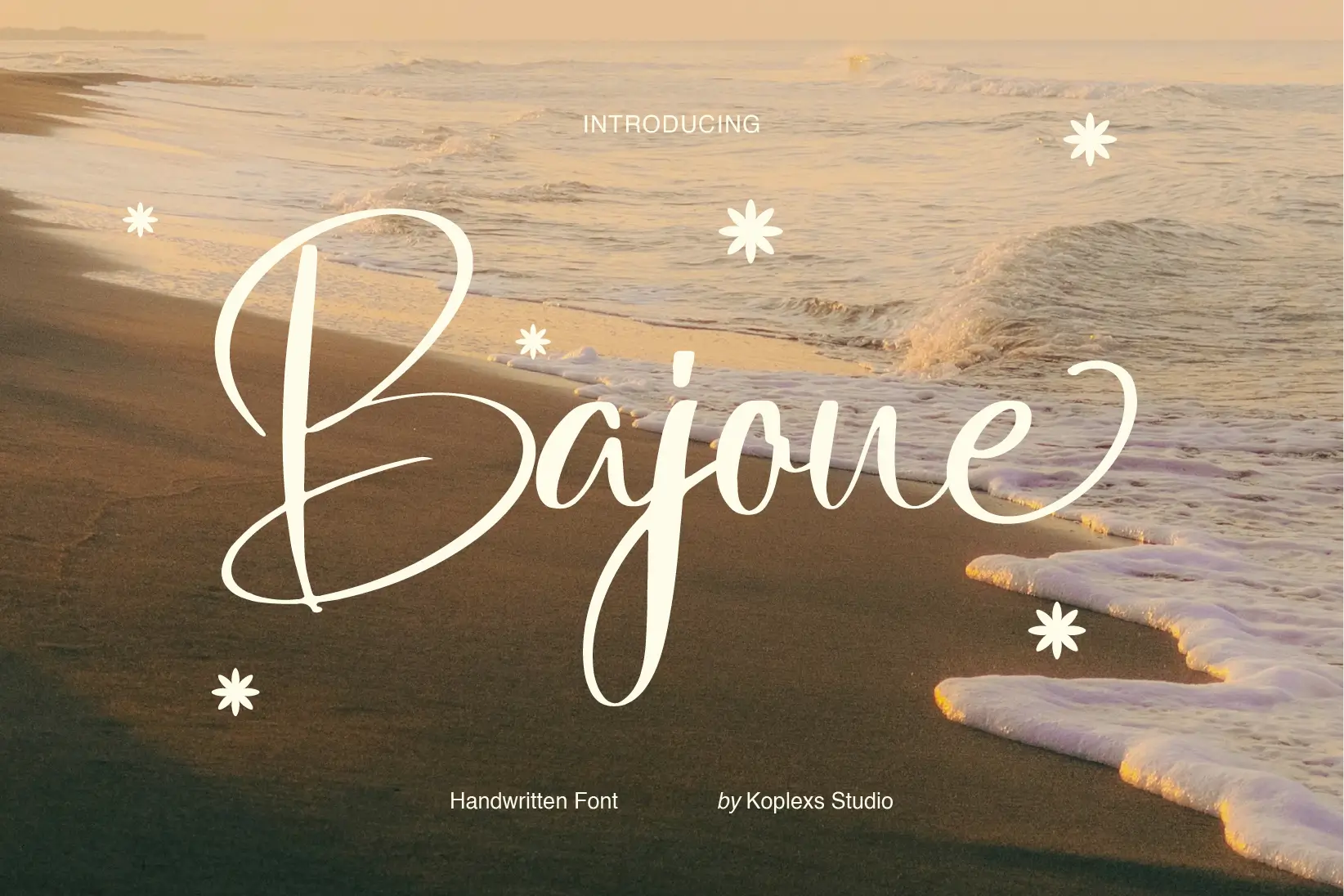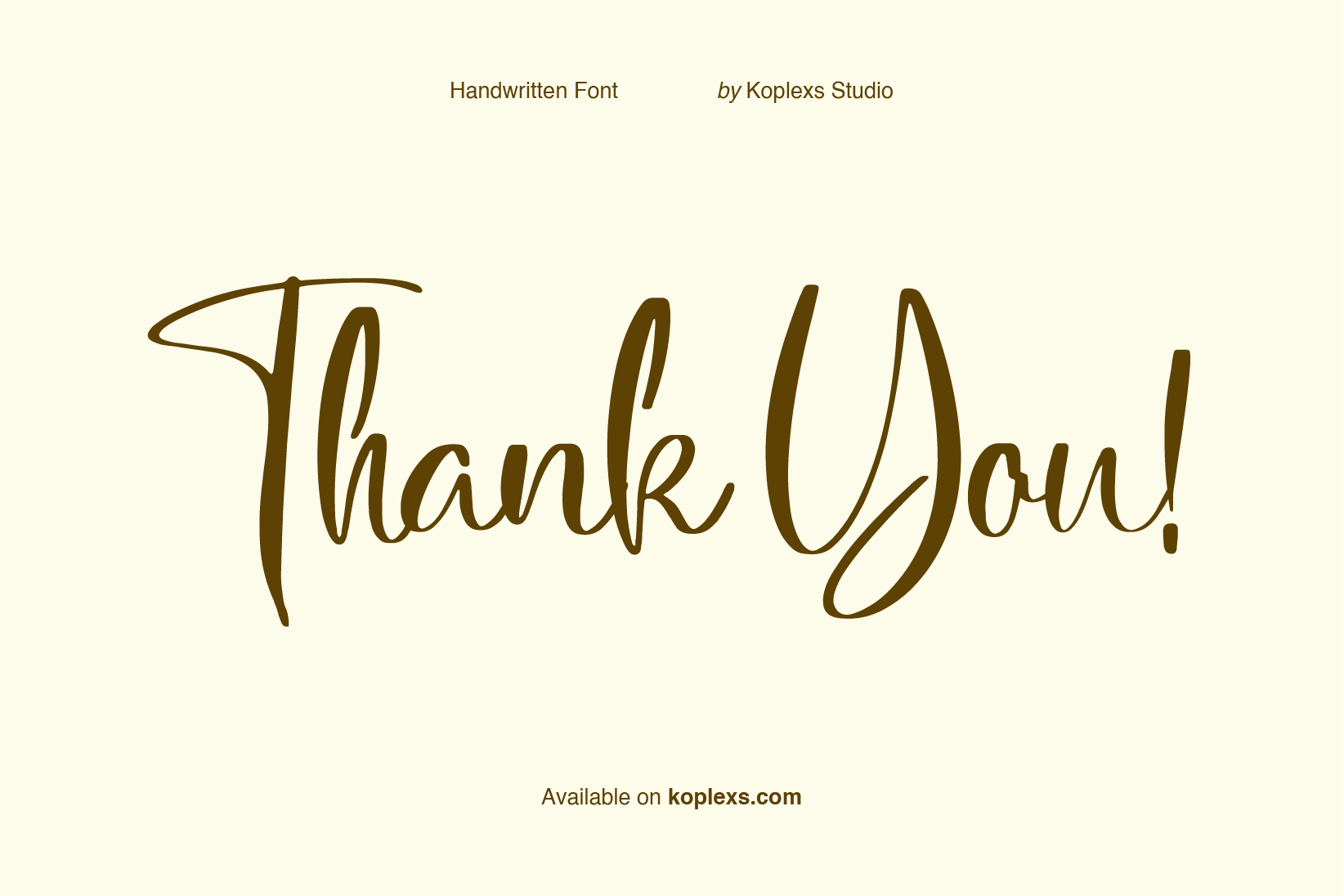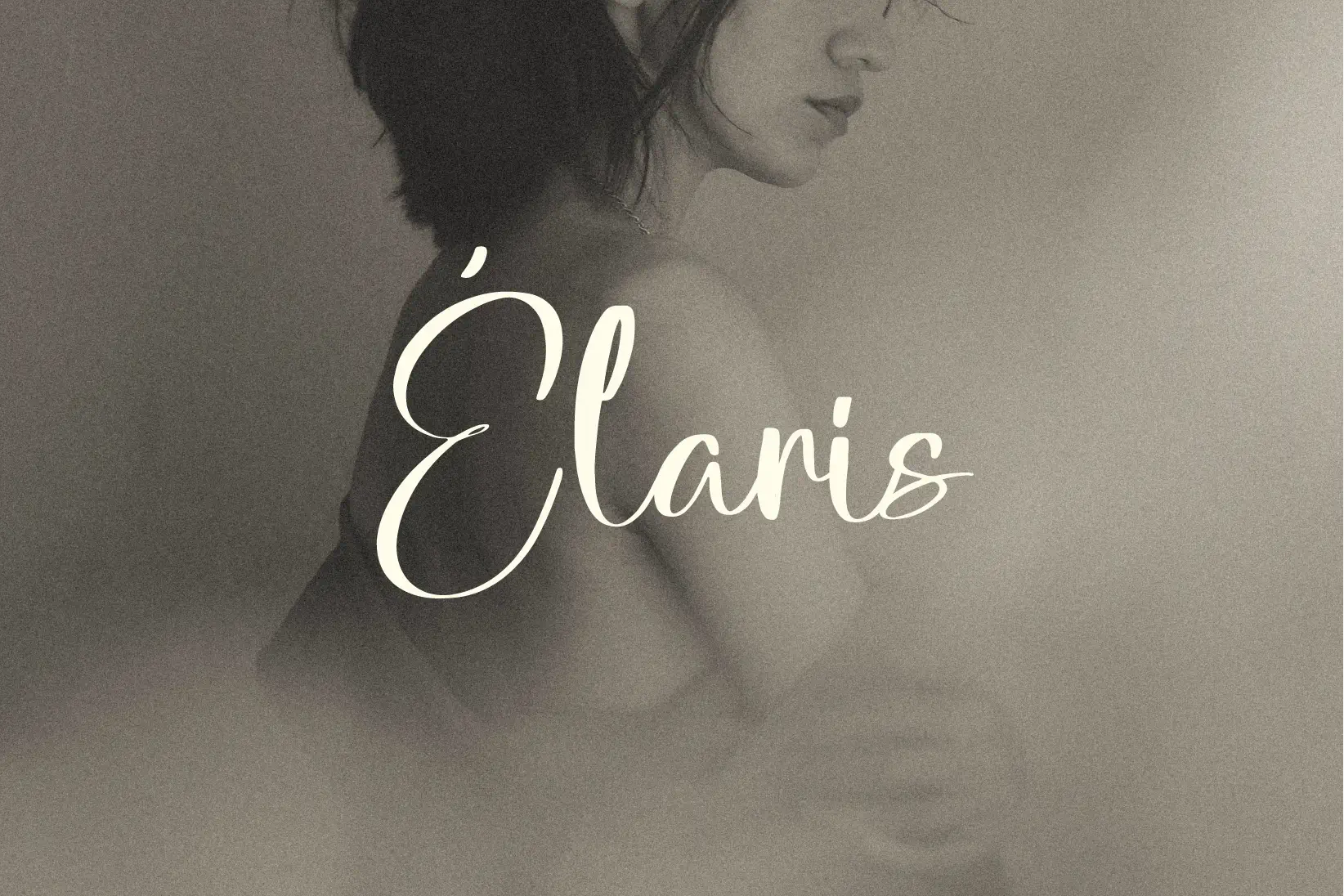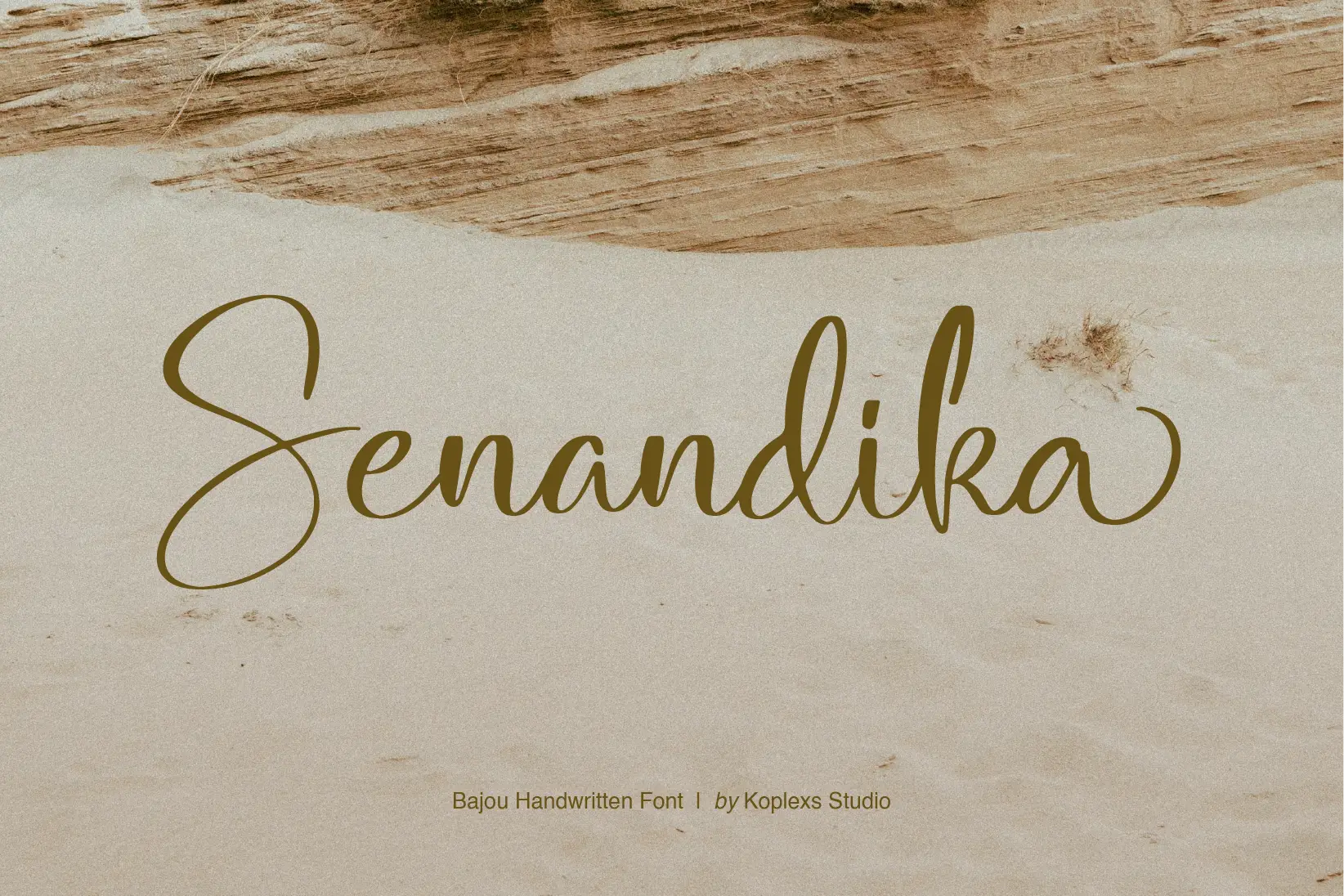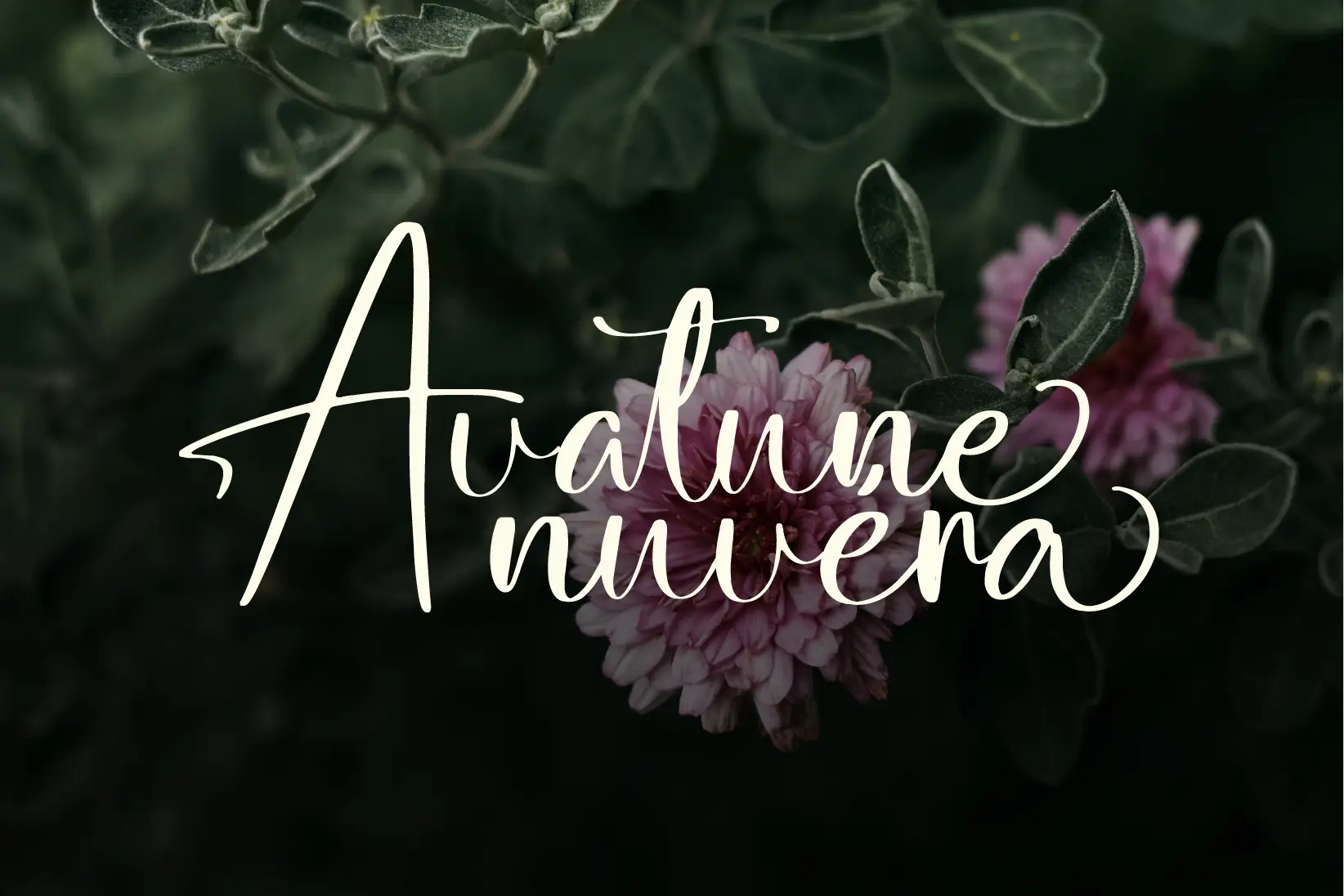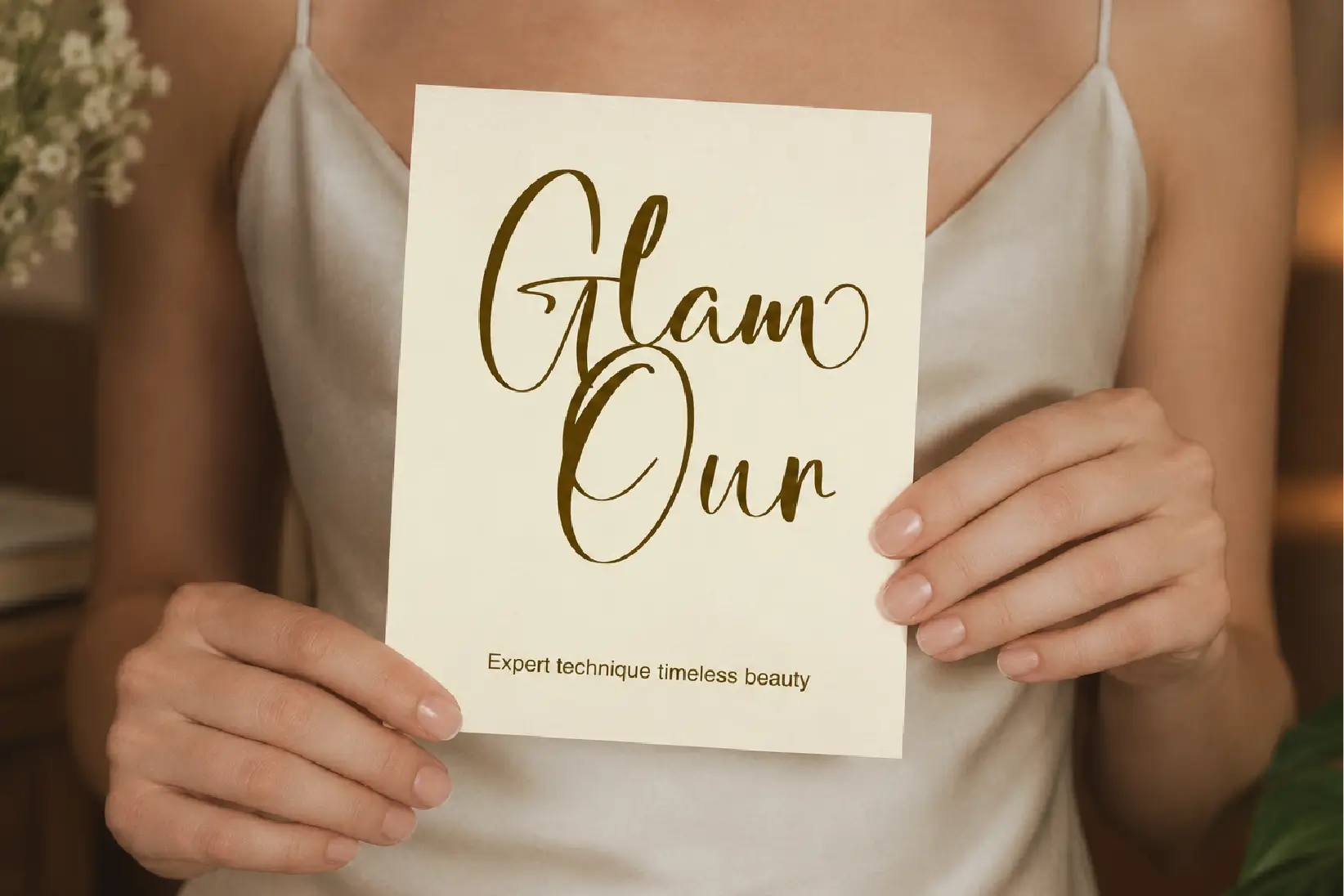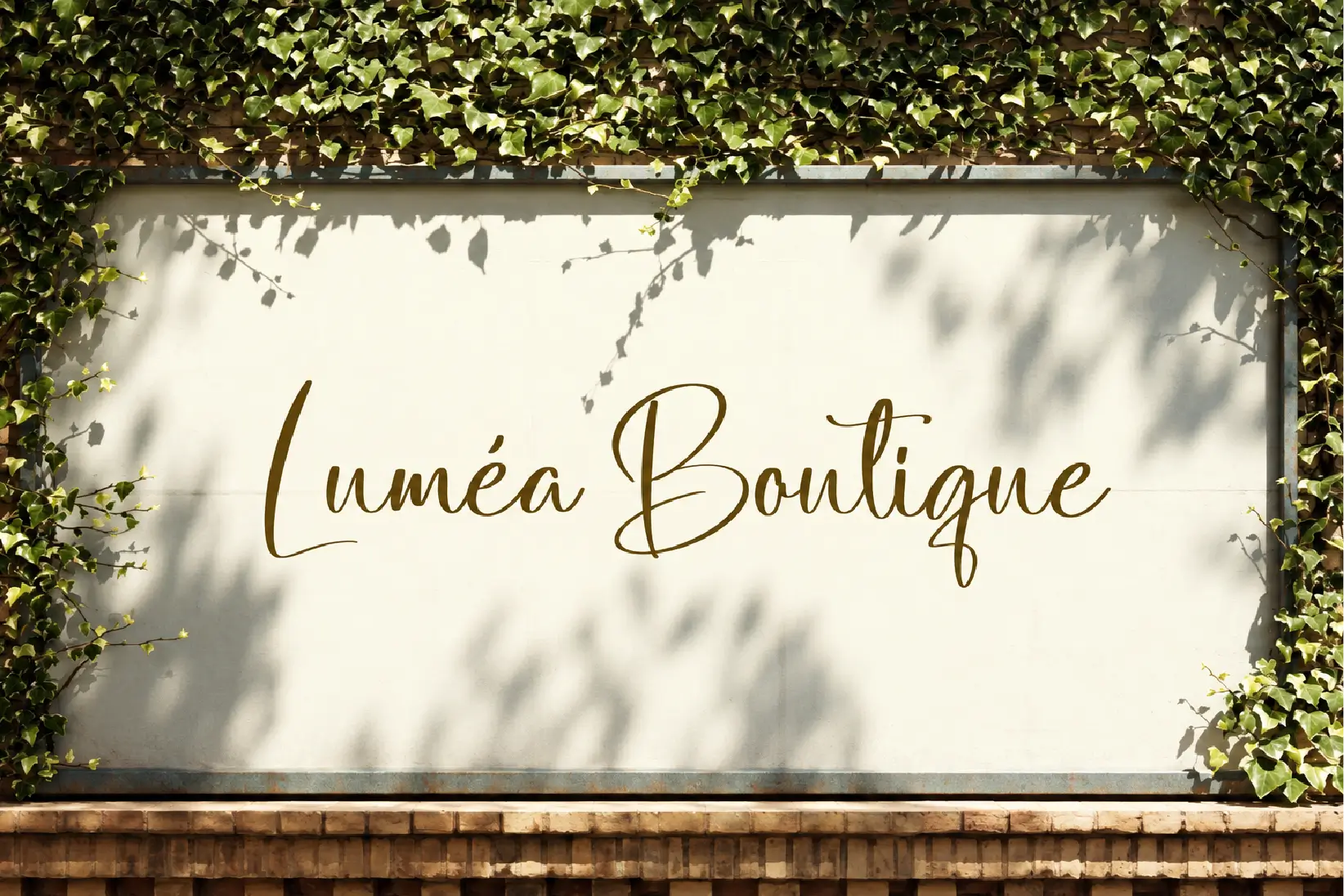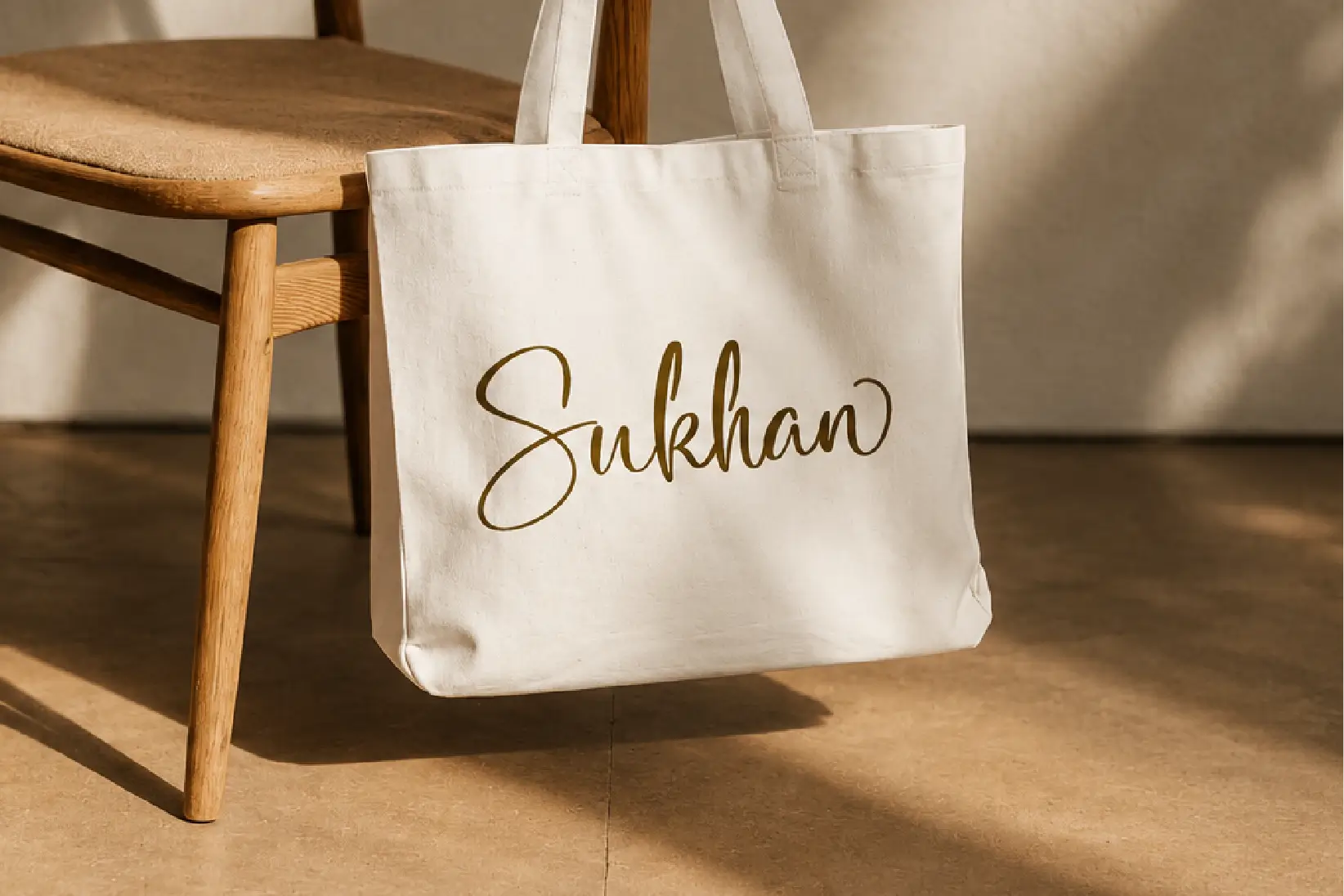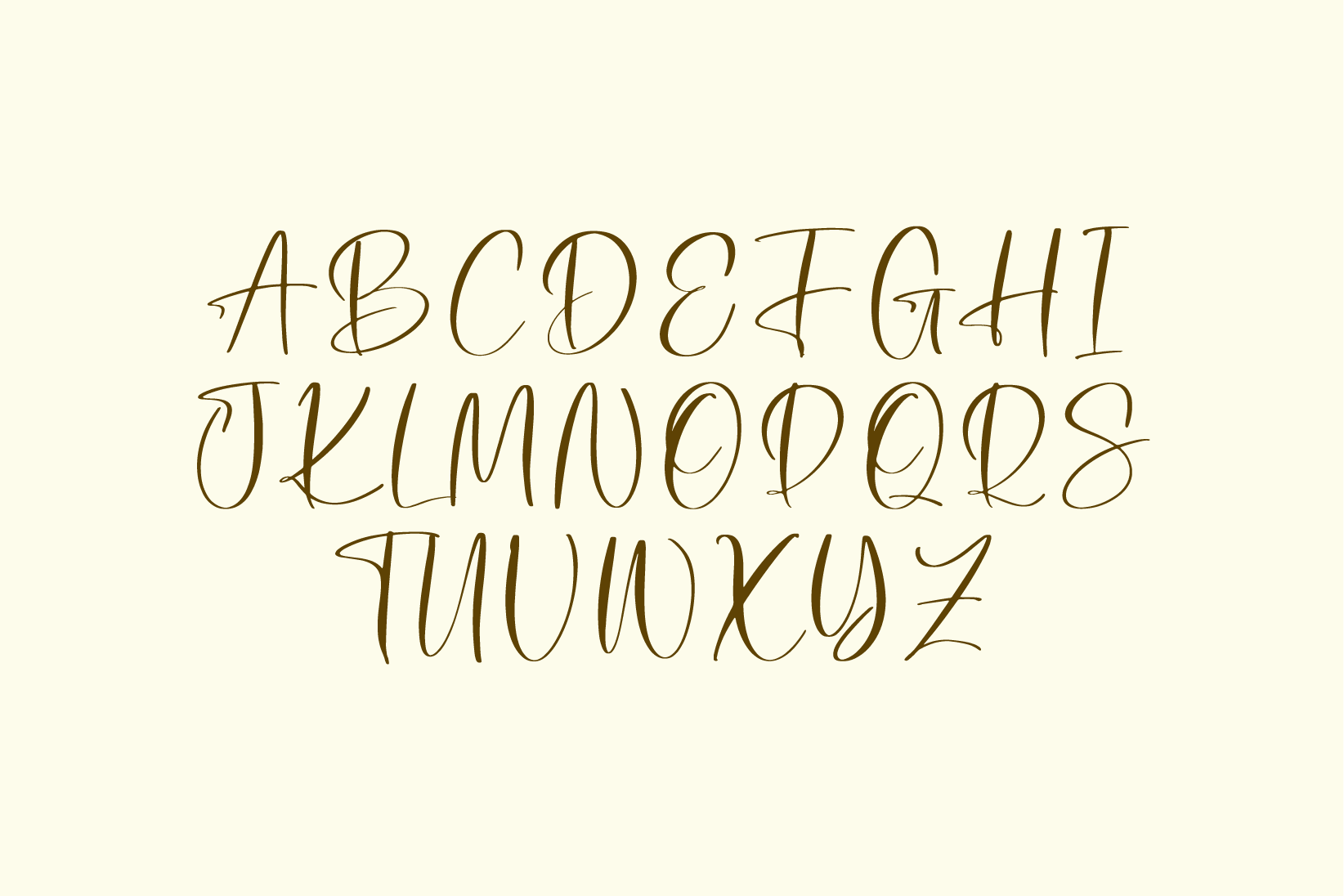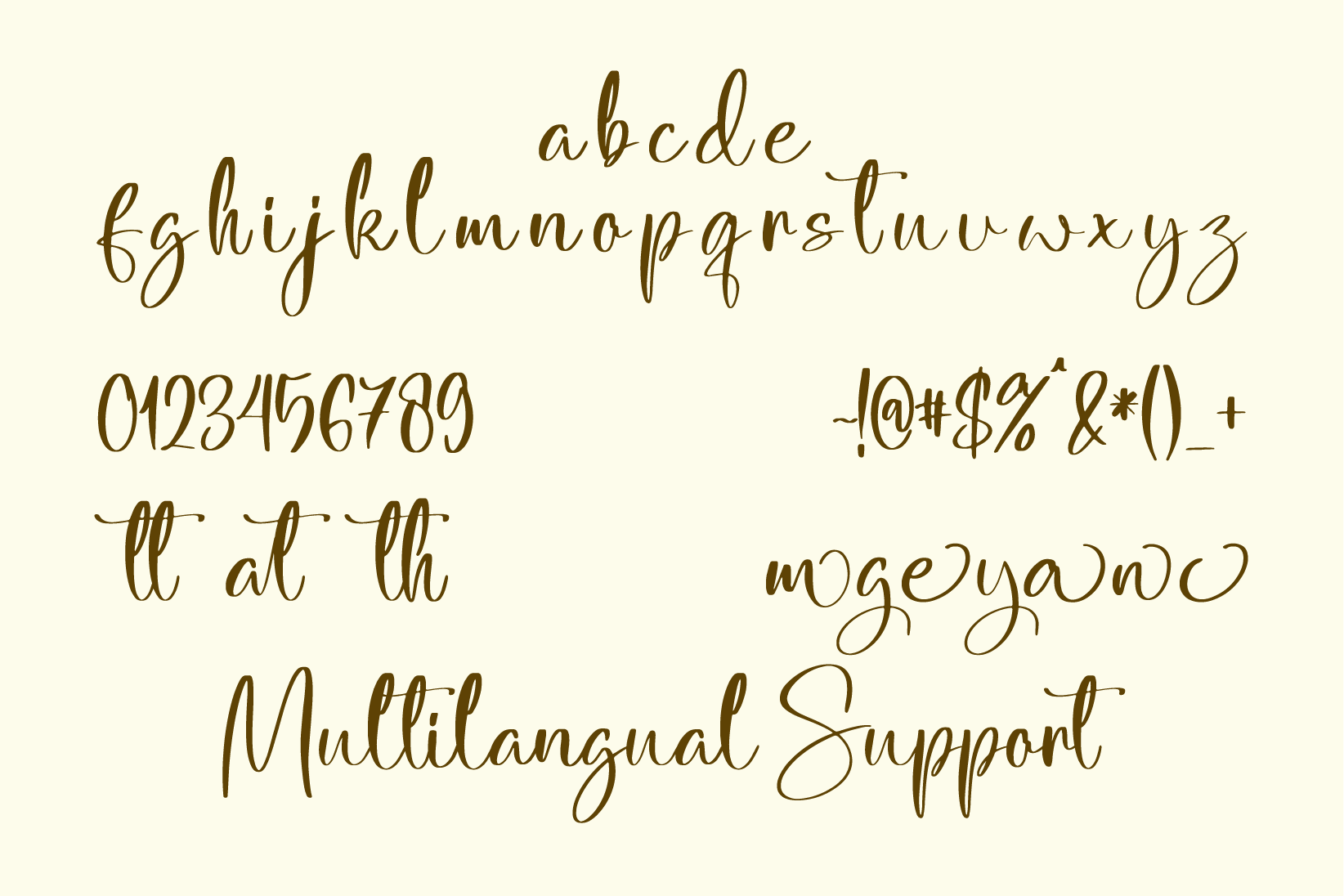
Bajoue Font
Bajoue Font brings a warm, romantic feel to logos, wedding stationery, and beauty packaging. Flowing letters, looping capitals, ligatures, and decorative swashes give your text a personal touch. Includes uppercase, lowercase, numbers, punctuation, and multilingual support.
Bajoue Font: Elegant Handwritten Script with Swashes
Bajoue Font is an elegant handwritten script font by Koplexs Studio. Tall looping capitals, flowing lowercase letters, and curved swash endings give it a warm, romantic character suited to boutique branding, wedding stationery, and beauty packaging.
Its contrast between delicate lines and fuller strokes brings the expressive rhythm of calligraphy fonts to names and short phrases. Decorative endings add a graceful finish, while the connected lettering keeps each word visually flowing.
• Standard & Multilingual glyphs
• Alternates & Ligatures
• Fonts include multilingual support
• Boutique logos and personal branding
• Wedding invitations, place cards, and greeting cards
• Beauty labels, skincare packaging, and fashion tags
• Tote bags, gift packaging, and social media graphics
Use Bajoue for the main name or headline, then pair it with simple supporting text. Leave space around its loops and flourishes so the lettering remains the focus.